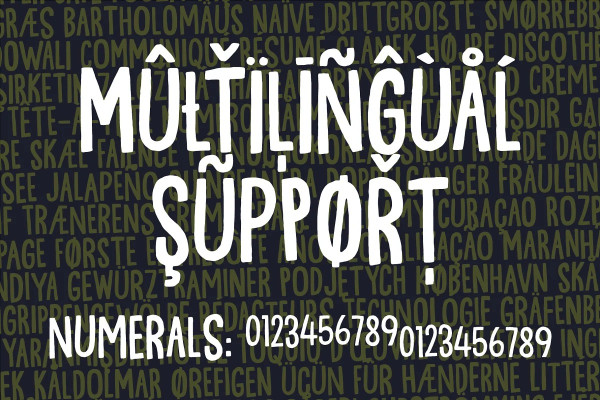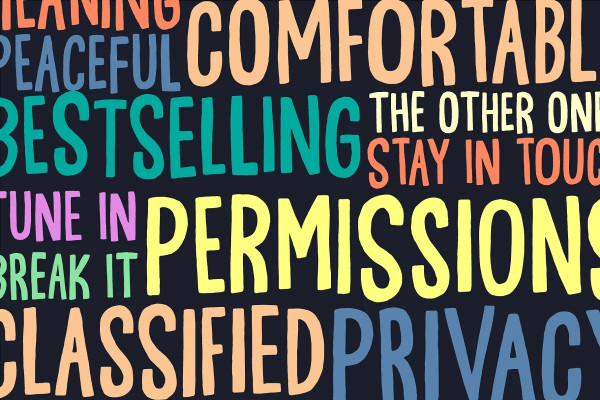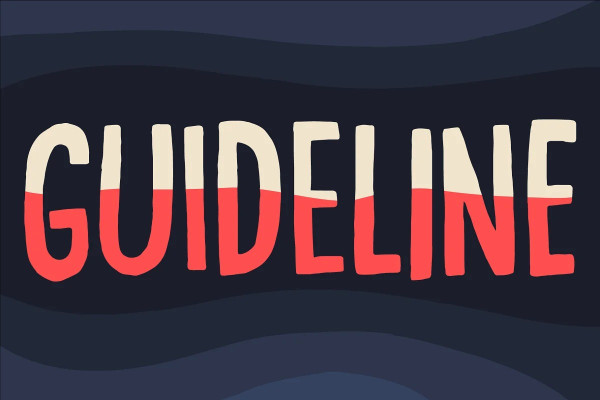
Guideline Font
Guideline Font is a hand display font. Guideline is a fun and unpredictable font that is perfect for a variety of projects. It would be great for headlines, logos, posters, and more. The font is also available in a variety of weights, so you can find the perfect one for your needs.
Use this font if you want fun, unpredictable, legible and handmade text with influences from both comics and graffiti. Each letter has 5 different versions, and they automatically cycles as you type!